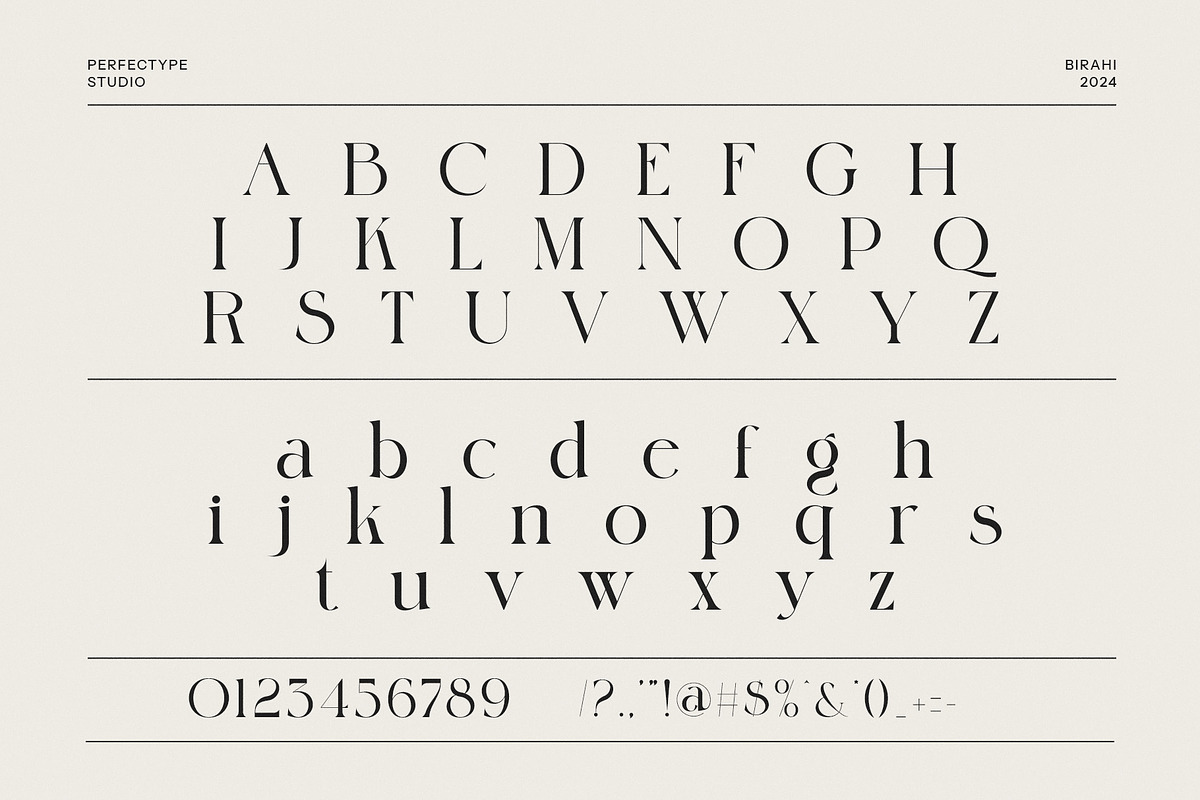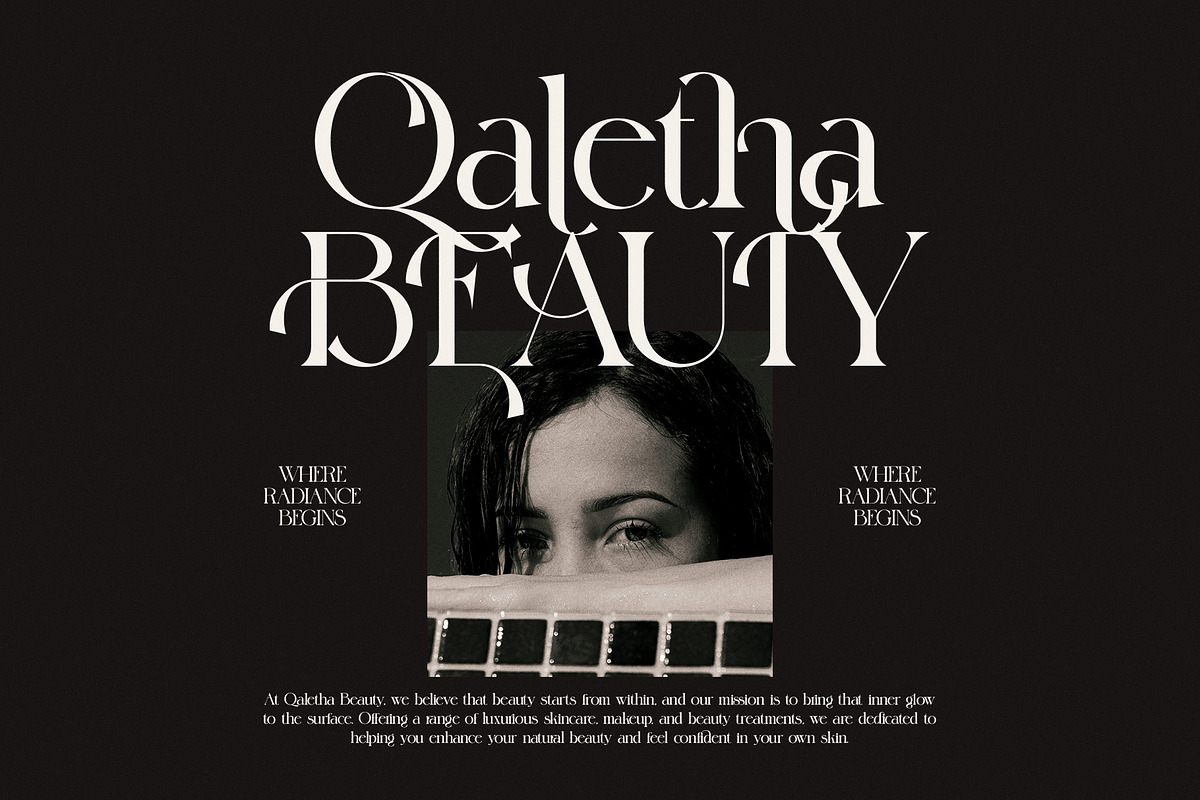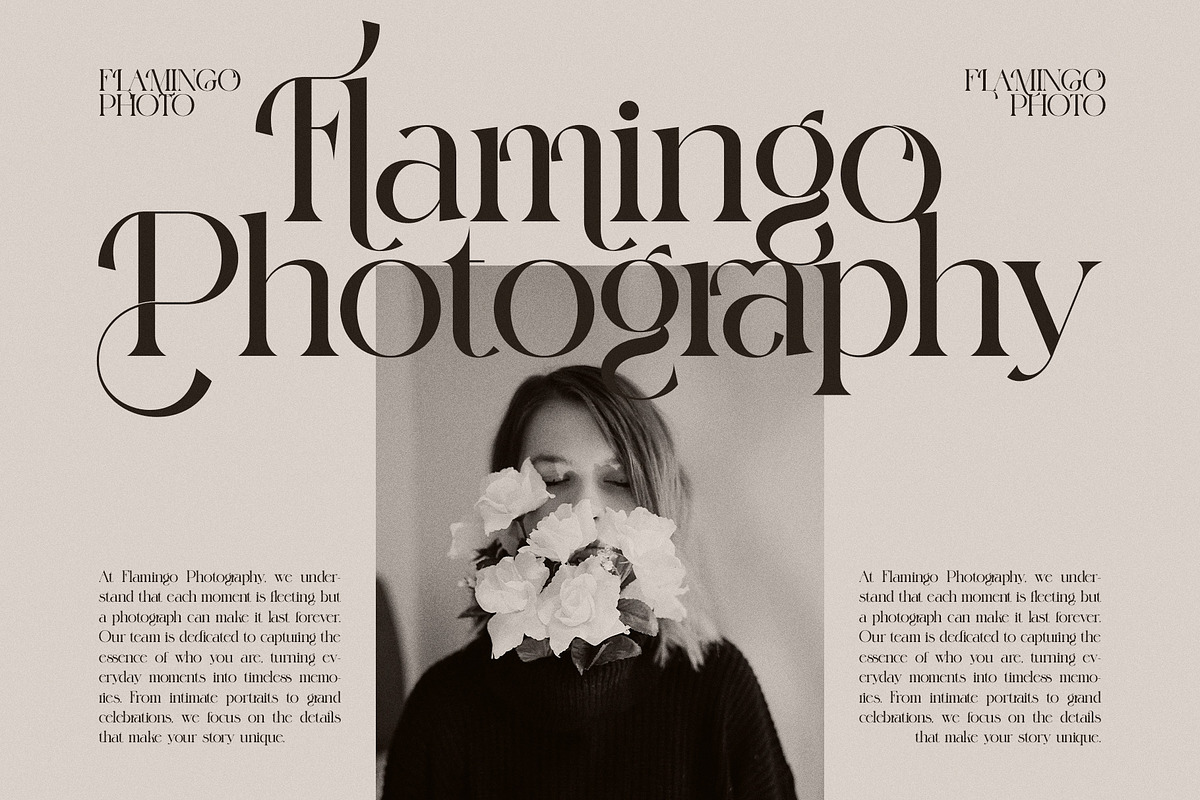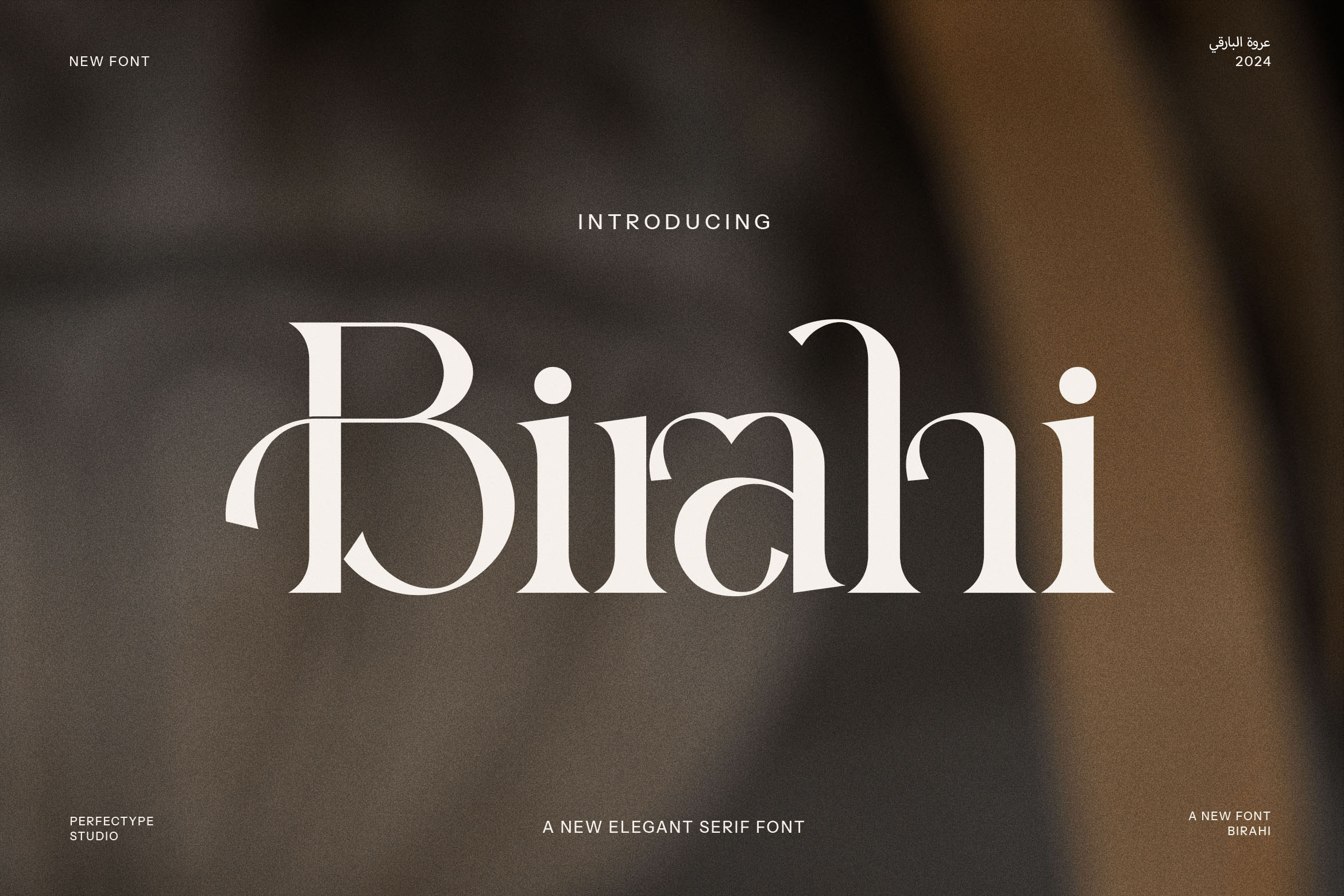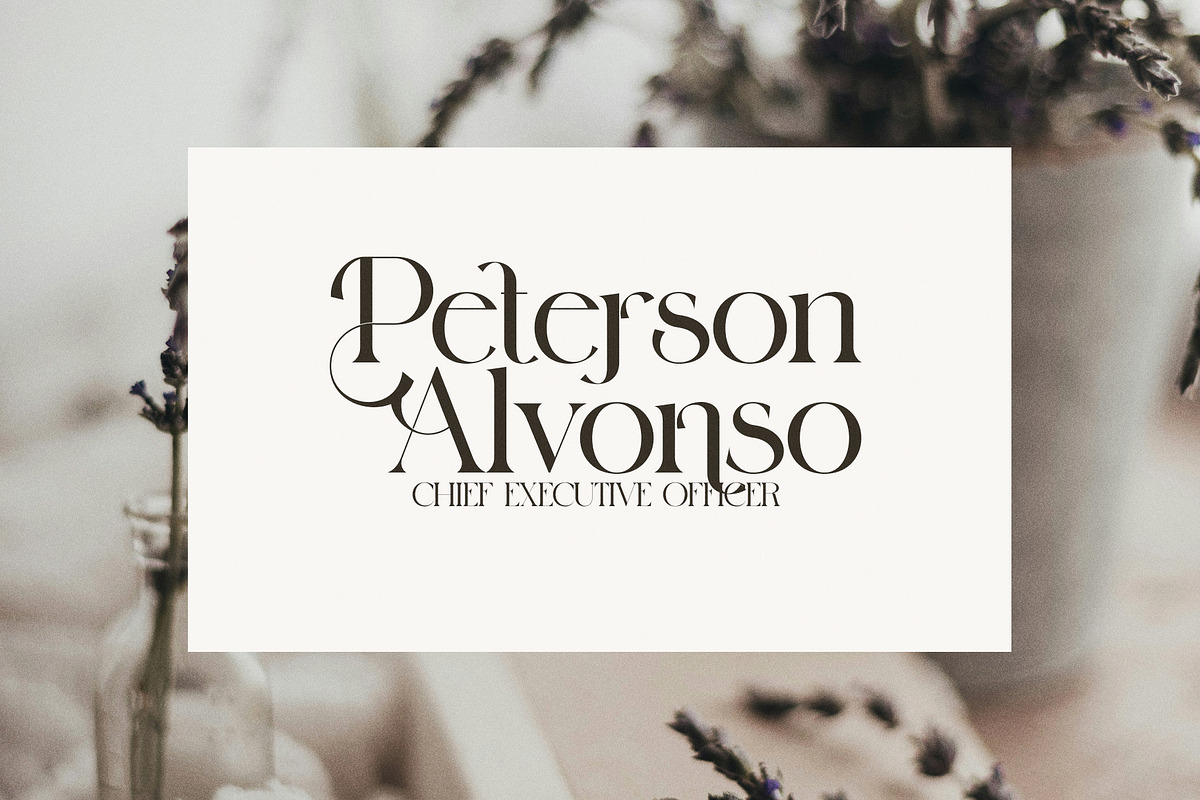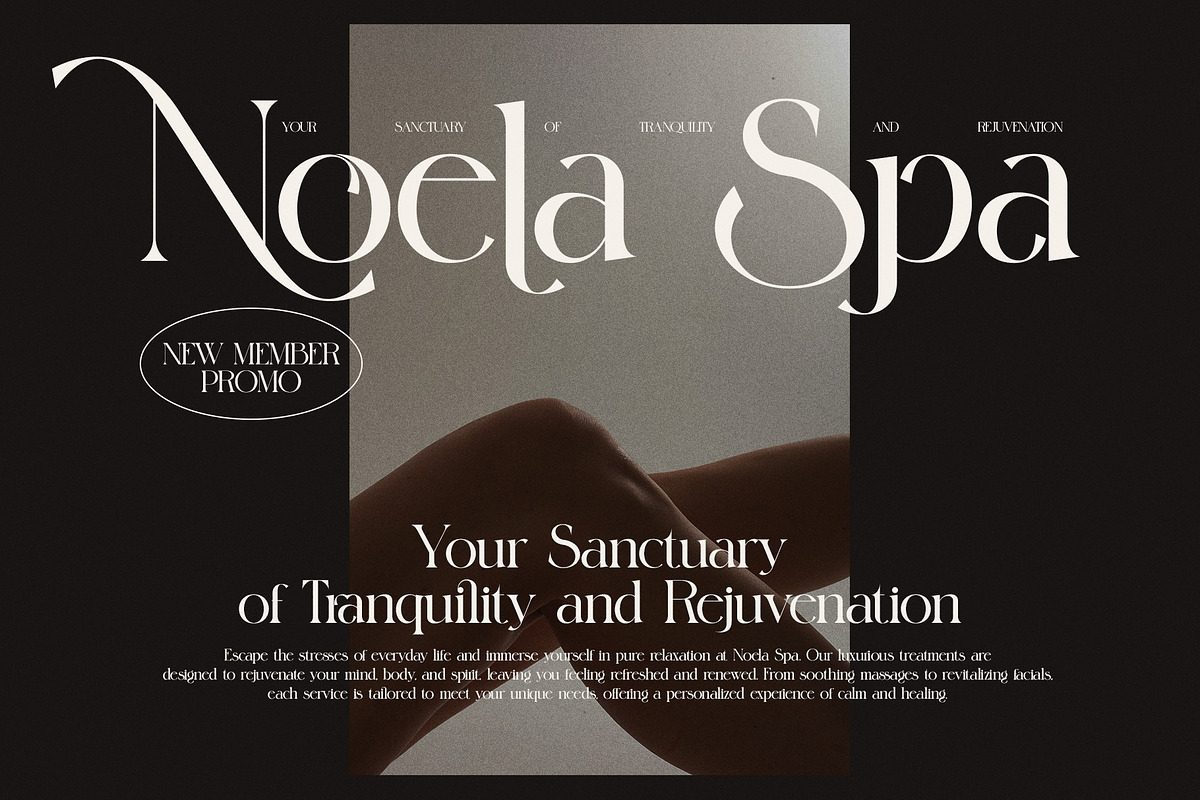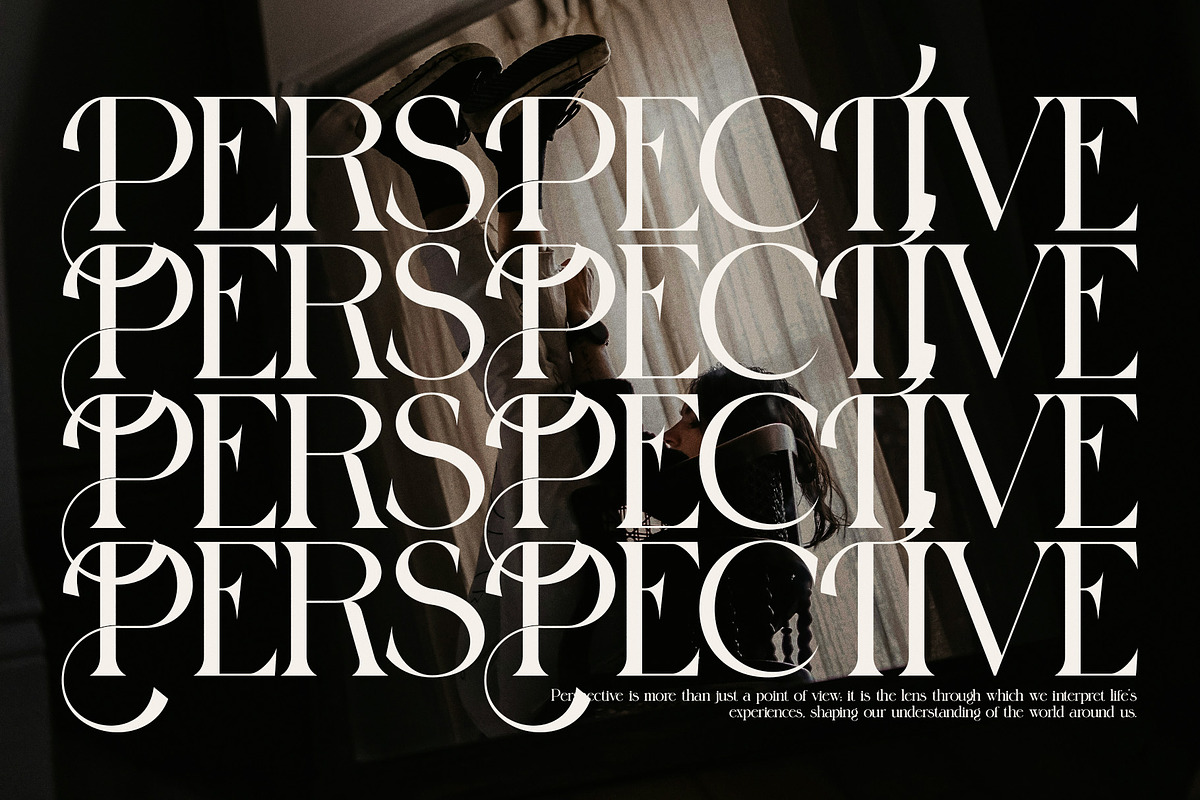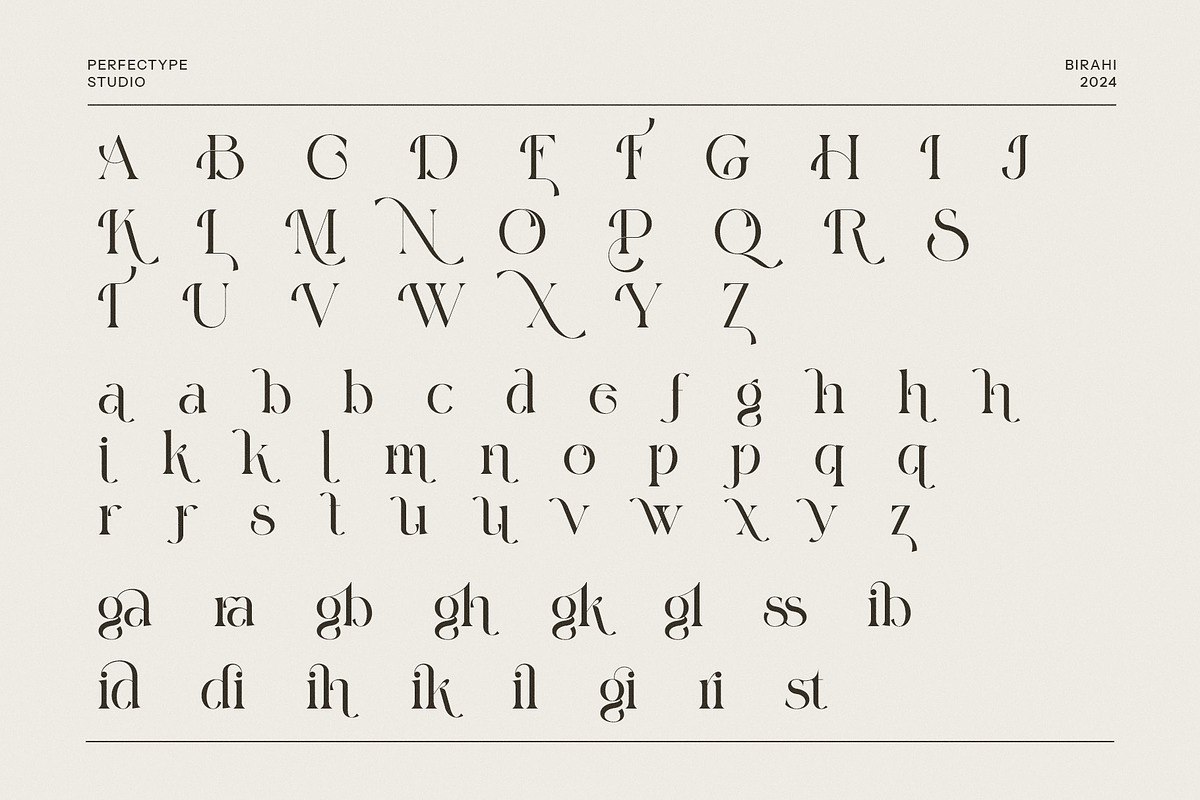
Birahi Stylish Serif Font
Birahi Stylish Serif Font is a sophisticated and modern serif typeface that exudes elegance and refinement. With its meticulously crafted design, Birahi features unique ligatures and alternate characters that creatively merge multiple letters into one seamless shape. This distinctive feature adds a level of artistry and uniqueness to your typography, making it perfect for projects that demand both style and originality.
Designed for versatility, Birahi is ideal for a wide range of applications, including logos, branding, websites, magazines, product packaging, and advertisements. Its elegant aesthetic and refined letterforms make it especially well-suited for luxury brands, boutiques, high-end products, and industries like fashion, food, and lifestyle. Whether you're designing a minimalist logo, a bold headline, or an intricate layout, Birahi brings sophistication and visual interest to every project.
The font’s clean serifs and smooth curves provide a balanced combination of modernity and tradition, offering exceptional legibility in both large and small sizes. Its timeless appeal ensures it works seamlessly across various design styles and formats, from elegant editorial spreads to sleek digital content.
Birahi Stylish Serif Font is the ideal choice for designers looking to create impactful, memorable, and visually stunning work. Its unique ligatures and elegant design elements will make your project stand out, leaving a lasting impression that reflects both luxury and creativity. Whether for branding, advertising, or product design, Birahi brings a touch of modern elegance to any project.